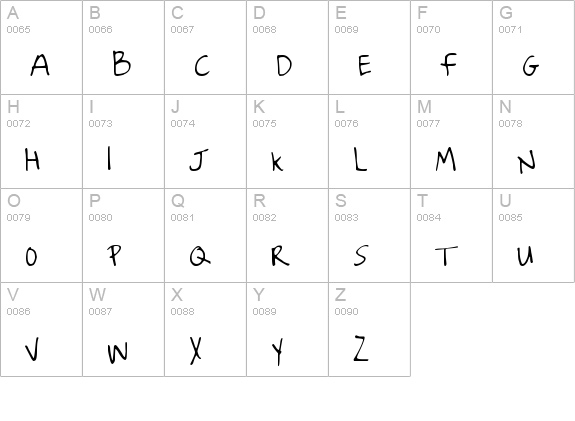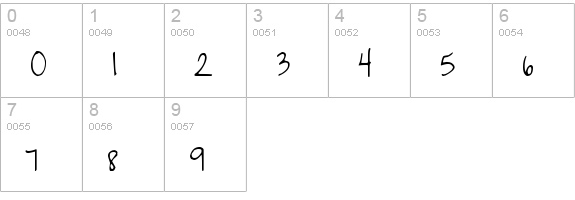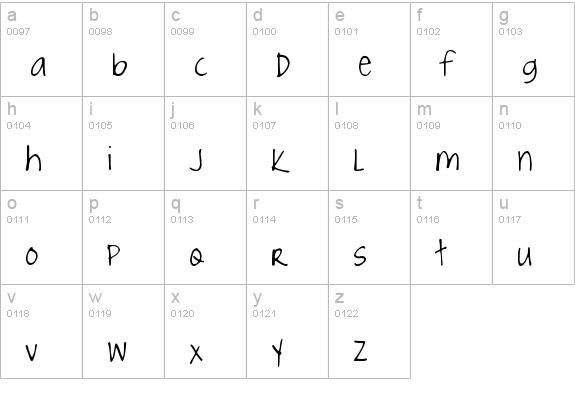
Joyful Juliana Font Details
Introducing the enchanting Joyful Juliana font, a delightful and whimsical typeface that radiates happiness and positivity. This fun and playful font is perfect for adding a touch of joy to your projects, whether it be greeting cards, invitations, posters, or social media graphics. Joyful Juliana features charming, hand-drawn letterforms with a unique and quirky style that is sure to bring a smile to your audience's face. What's even more delightful is that Joyful Juliana is available for free download at FontsMarket.com. Yes, you read that right - this delightful font can be yours at no cost, allowing you to spread joy and cheer without breaking the bank. So why wait? Bring a touch of whimsy to your designs with Joyful Juliana today!